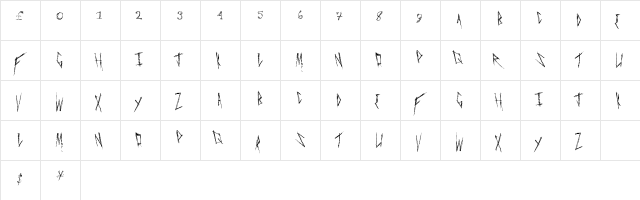
FreakyManor Regular
| Foundry | Xerographer Fonts |
| Designer | Xerographer Fonts Max Infeld |
Design Context for FreakyManor Typeface
FreakyManor is a composed and adaptable typeface that performs quietly and consistently across a wide range of design contexts.